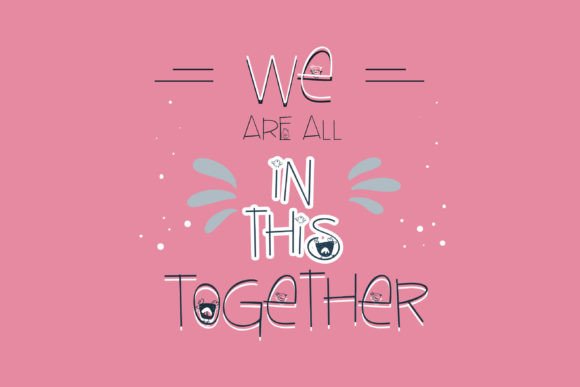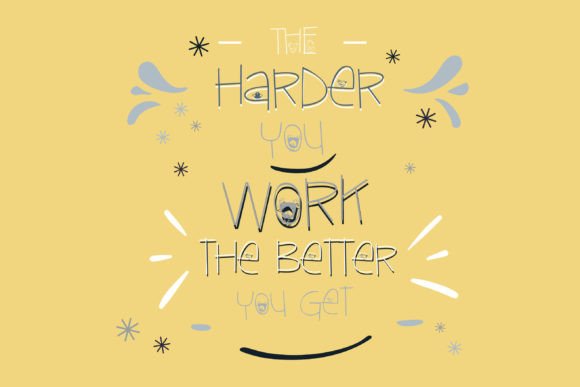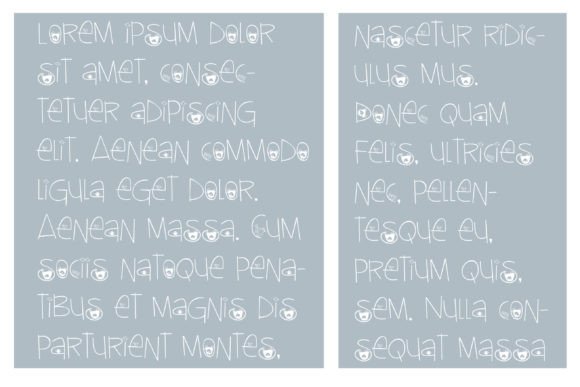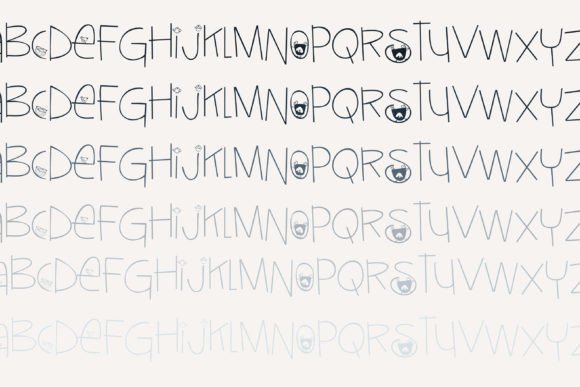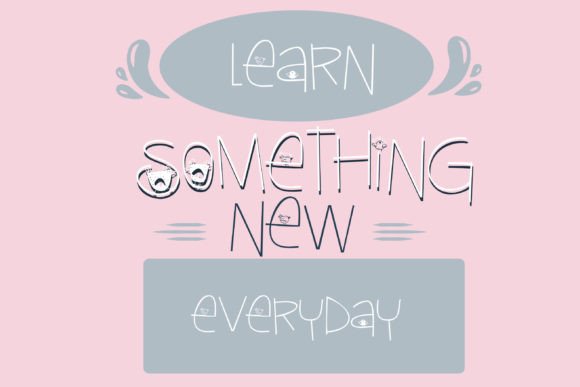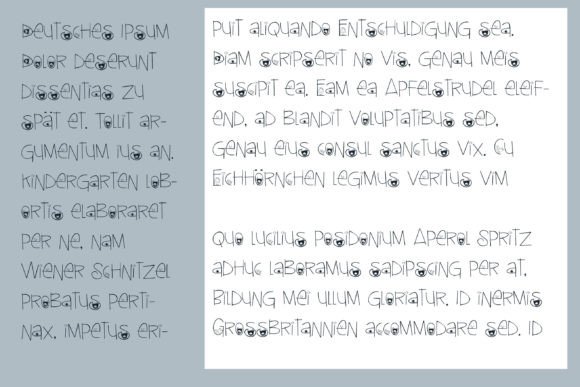
Introducing Chicksqueak Font: The Ultimate Choice for Energetic Designs
In the world of typography, fonts play a crucial role in conveying the tone and personality of a design. For designers and crafters looking to add a youthful and distinctive touch to their projects, Chicksqueak Font is an excellent choice. This modern font exudes energy, playfulness, and a sense of fun, making it perfect for designs that require a bold and captivating effect.
The Unique Characteristics of Chicksqueak Font
Chicksqueak Font boasts bold lines and unconventional letter shapes, giving it a unique and modern feel. The font’s design is uncluttered, which facilitates readability and makes it easy to use in various design applications. The letters in Chicksqueak Font harmonize seamlessly, generating a coherent and captivating effect that is sure to grab the attention of your audience.
What Makes Chicksqueak Font Stand Out
So, what sets Chicksqueak Font apart from other fonts? Here are a few key features that make it an excellent choice for designers and crafters:
- Youthful and energetic vibe: Chicksqueak Font is perfect for designs that require a playful and youthful touch.
- Bold lines and unconventional letter shapes: The font’s unique design elements give it a modern feel that’s sure to make your designs stand out.
- Uncluttered design: The font’s clean and simple design makes it easy to read and use in various design applications.
- Seamless letter harmony: The letters in Chicksqueak Font work together to create a coherent and captivating effect.
Chicksqueak Font is versatile and can be used in a variety of design applications, including:
- Digital designs: Use Chicksqueak Font in social media graphics, blog posts, and website designs to add a playful touch.
- Print designs: The font is perfect for print designs, such as brochures, flyers, and posters.
- Crafting projects: Chicksqueak Font can be used in various crafting projects, such as card making, scrapbooking, and DIY signs.
Tips for Using Chicksqueak Font Effectively
To get the most out of Chicksqueak Font, here are a few tips to keep in mind:
- Use it sparingly: While Chicksqueak Font is bold and eye-catching, it’s best to use it sparingly to avoid overwhelming your design.
- Pair it with complementary fonts: Pair Chicksqueak Font with complementary fonts to create a cohesive and visually appealing design.
- Experiment with colors and textures: Don’t be afraid to experiment with different colors and textures to add depth and interest to your design.
In conclusion, Chicksqueak Font is an excellent choice for designers and crafters looking to add a youthful and distinctive touch to their designs. Its bold lines, unconventional letter shapes, and uncluttered design make it a modern and versatile font that’s perfect for various design applications. By following the tips outlined above, you can use Chicksqueak Font effectively and create designs that are sure to grab the attention of your audience.